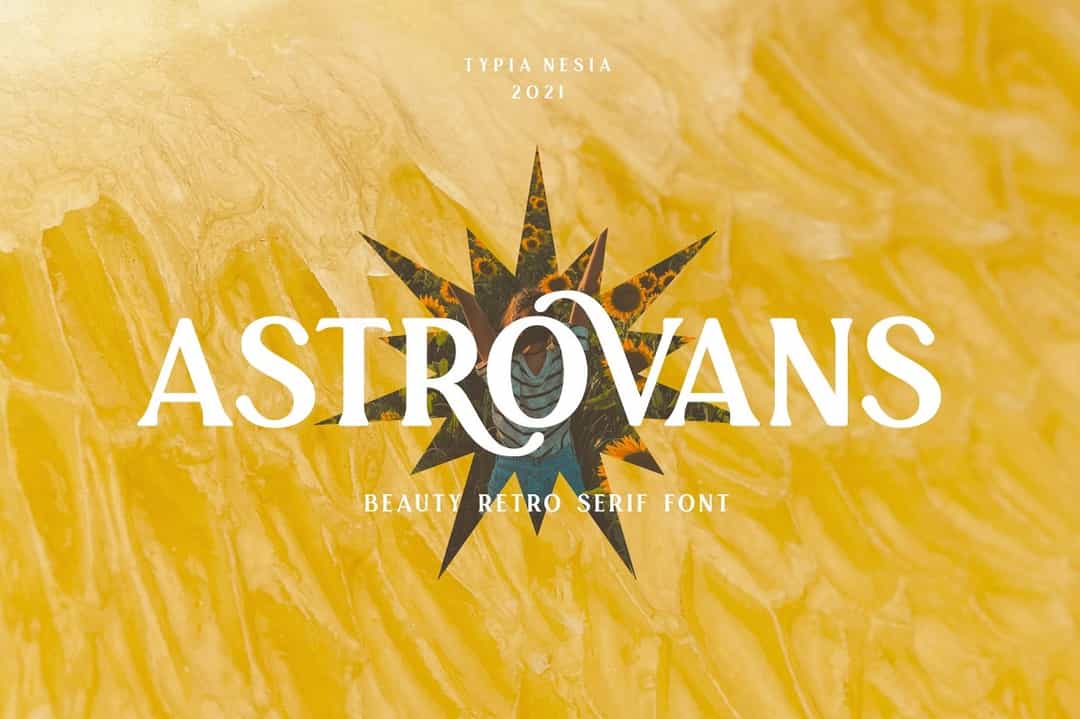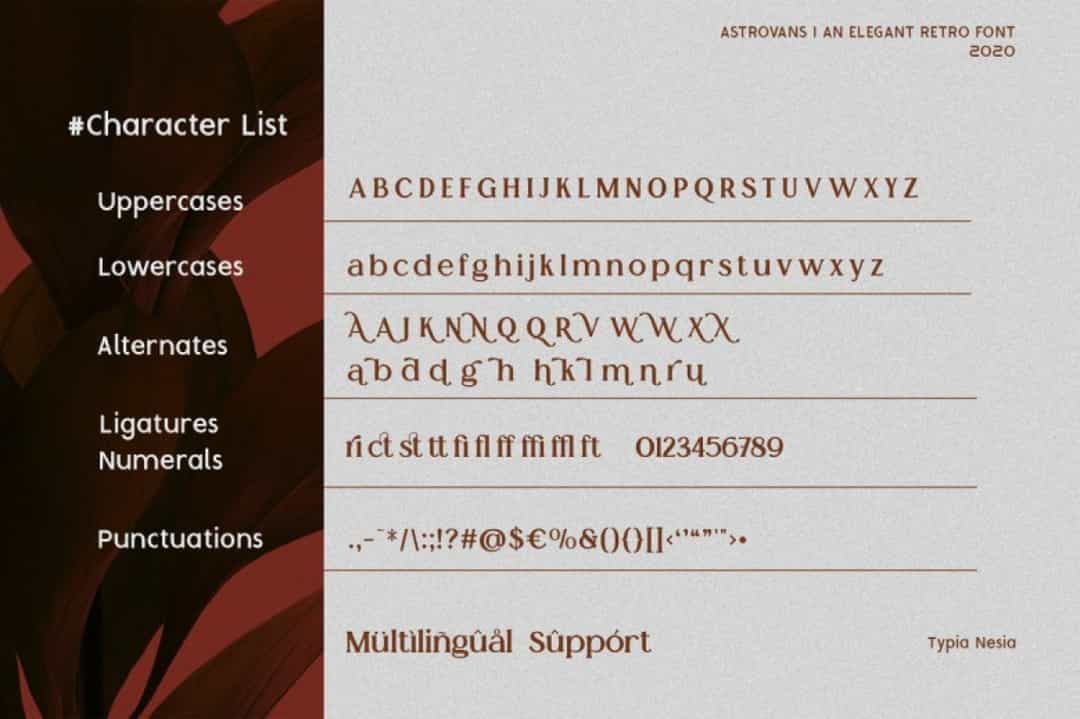
Astrovans is an exquisite classic, bold and vintage serif font designed with care to make your work appear memorable and out-of-the-ordinary. This font looks fabulous across a range of designs.